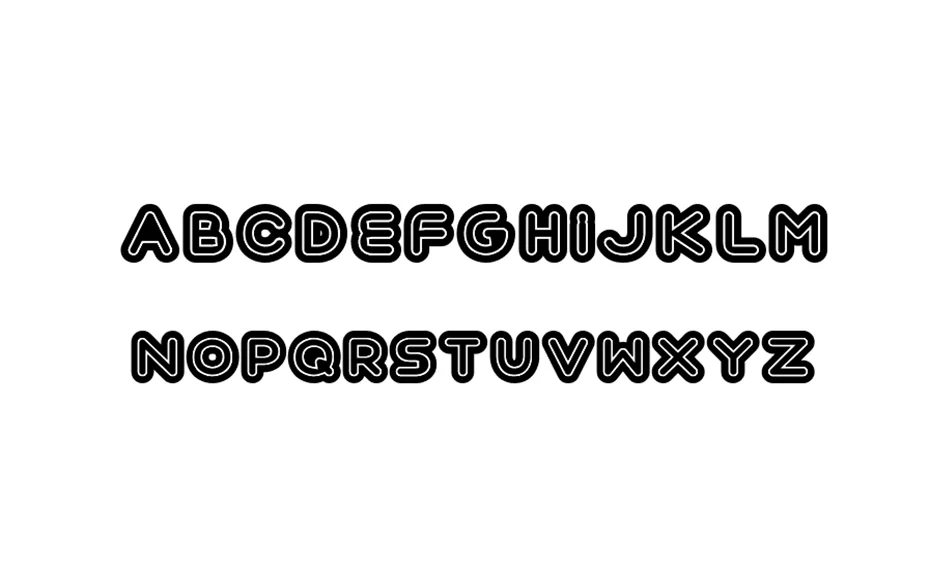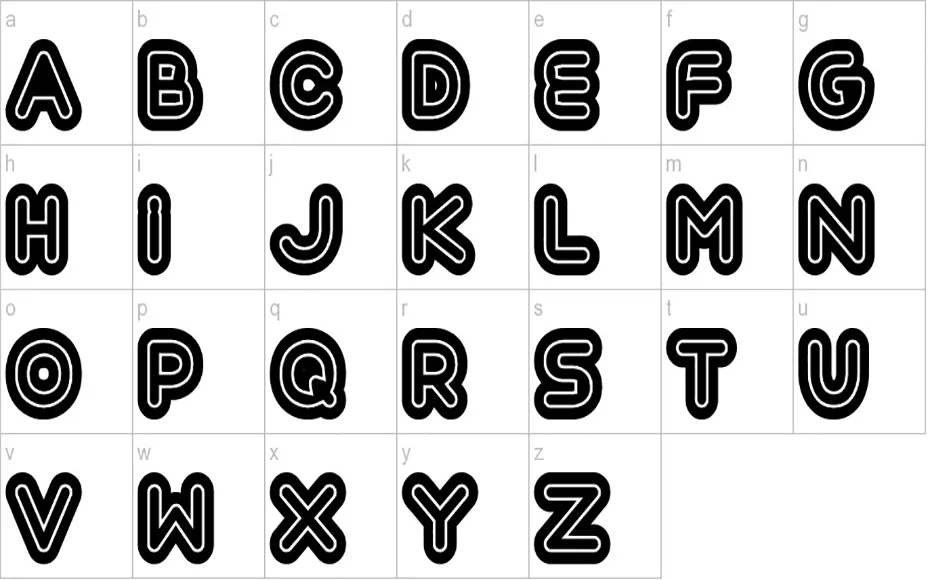
Automania Font is an outline typeface that takes a different approach. As one of the best disco-era fonts, you’re sure to love using this one in your work.
Ideal uses include music album covers, apparel design, posters, movie titles, and more. A great contribution by Emil Bertell via his type foundry Fenotype in 2002.
The full typeface has an amazing rounded structure and is another unique font by nature. Such gives it an extraordinary professional look.
It is suitable for great typeface printing as well as a unique logo design. In this way, it has an advantage over all other fonts used in the market.
You can notice that the special thing about this typeface is that it has rounded corners, bubble letters, and a clear shape.
This typeface is the perfect choice for logos, books covers, printing over the fabric, Official cards, brochures layouts, printing magazine, greeting, advertisements, posters, banners, invitation cards texture, and so on.
Automania Font comes in a single regular style. and this modern font has 68 characters along with super cool Truetype features.